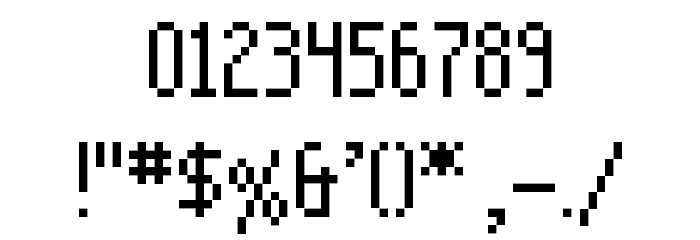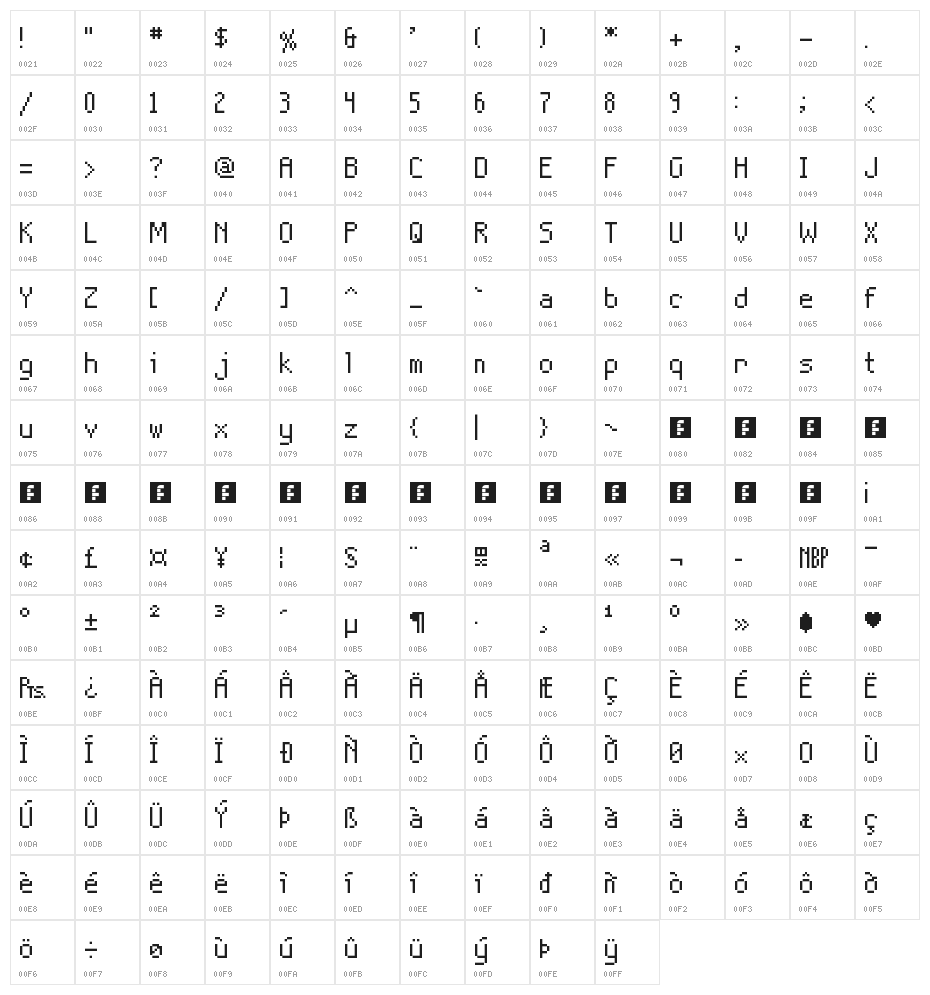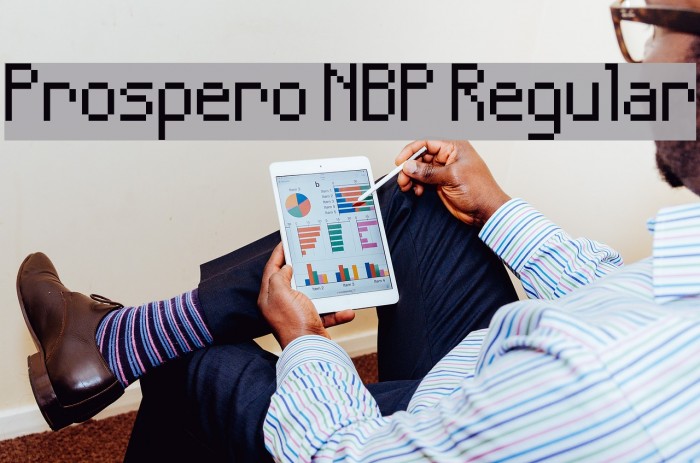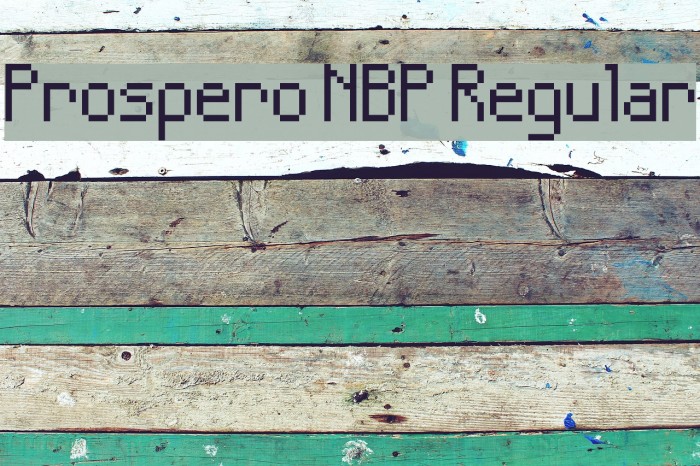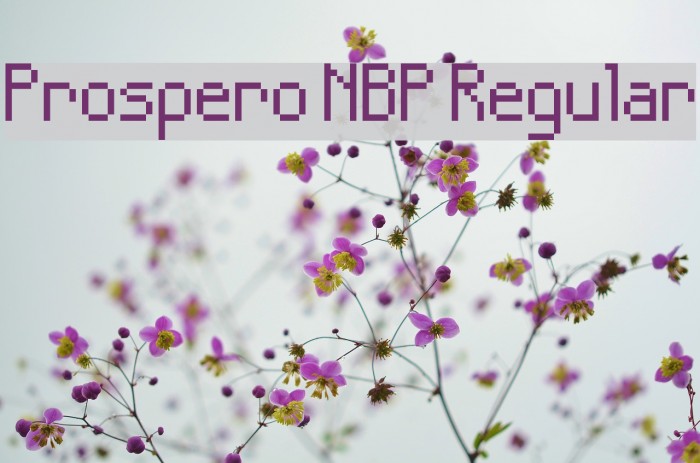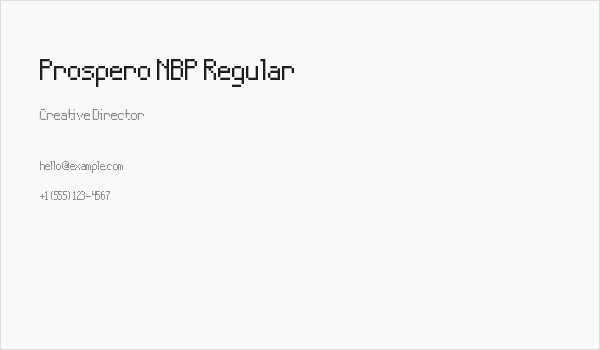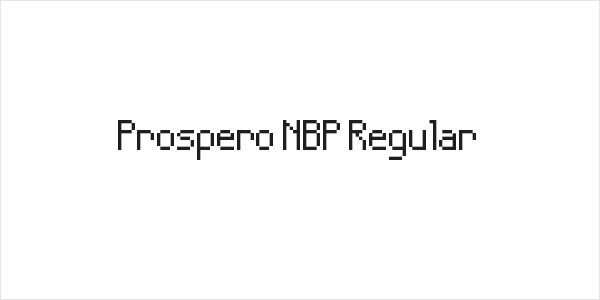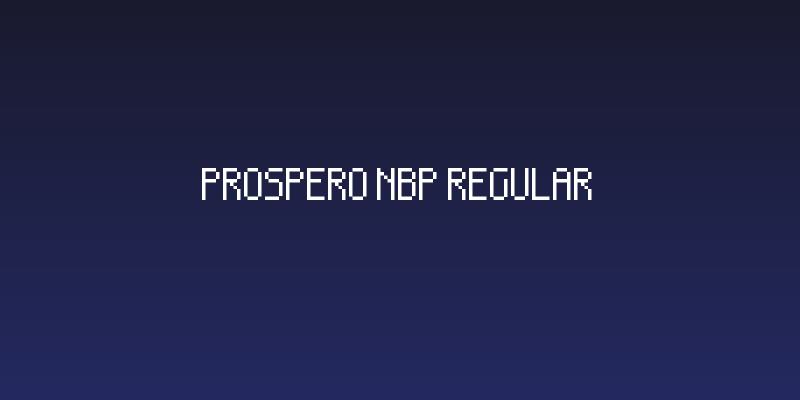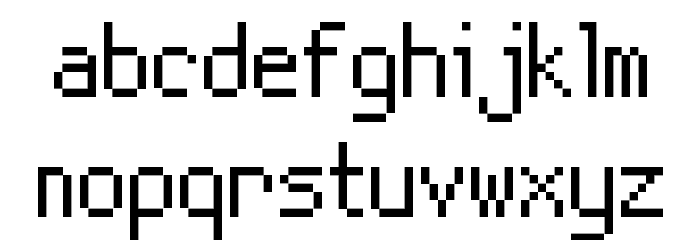
Prospero NBP Regular Font
Prospero NBP Regular Description
This font features a pixelated, monospaced design reminiscent of early computer and video game graphics. Each character is composed of a grid-like structure, giving it a distinctly retro and digital appearance. The uniformity in width across all characters ensures a consistent and orderly presentation, suitable for coding or digital-themed projects. The characters are well-defined with a clear separation, making them easily legible even at smaller sizes. The font includes a full set of uppercase and lowercase letters, numbers, and a variety of special characters, providing versatility for various applications.
| Overall Style | Retro |
| Use Case | Logos, Digital displays, Coding |
| Proposed Projects | Ideal for retro video games, digital art projects, coding environments, and tech-themed designs. |